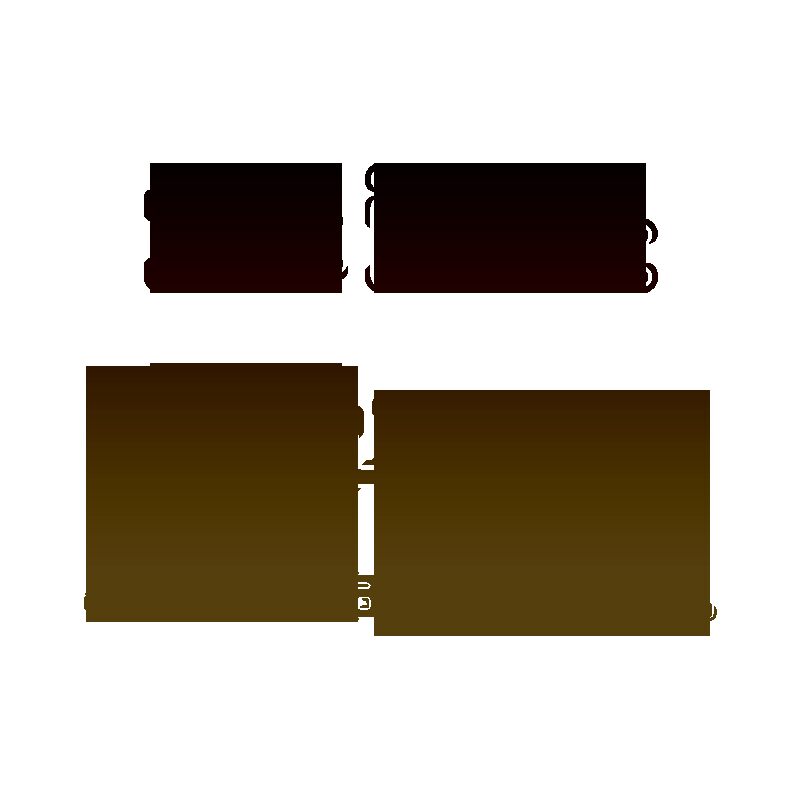
Oak-Marsquake by Oliver A. Krimmel of OAK is a free futuristic display font with swollen, tubular letters and deep internal cutouts. Narrow slots and hooked details break up the rounded mass.
Arcade title screens are its strongest setting, with the oversized forms also fitting electronic music posters and science-fiction packaging. The repeated channels and clipped openings can become part of a circuit-board or mechanical illustration, though game graphics remain its most convincing use.